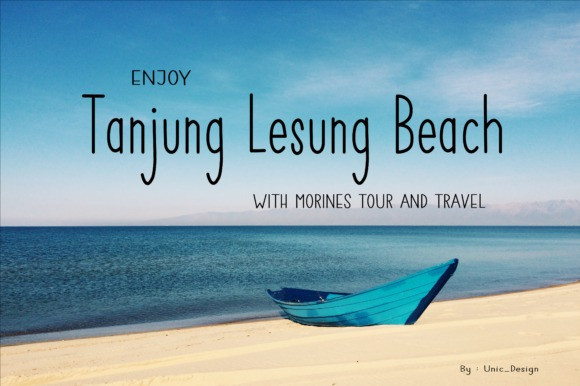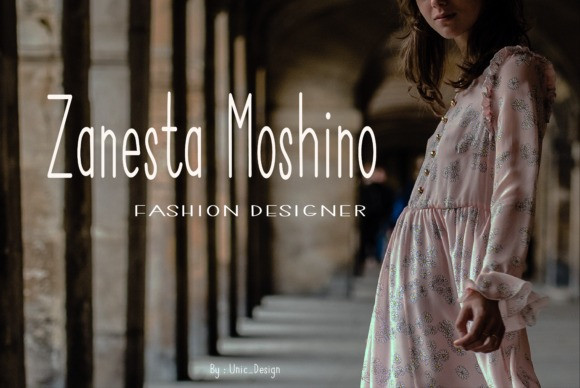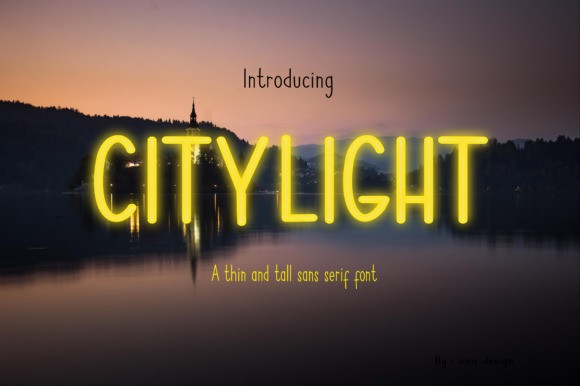
Bhuffets Handwritten Font
Give your designs an authentic handcrafted feel. “Bhuffets Modern Script Font” is perfectly suited to stationery, logos and much more.